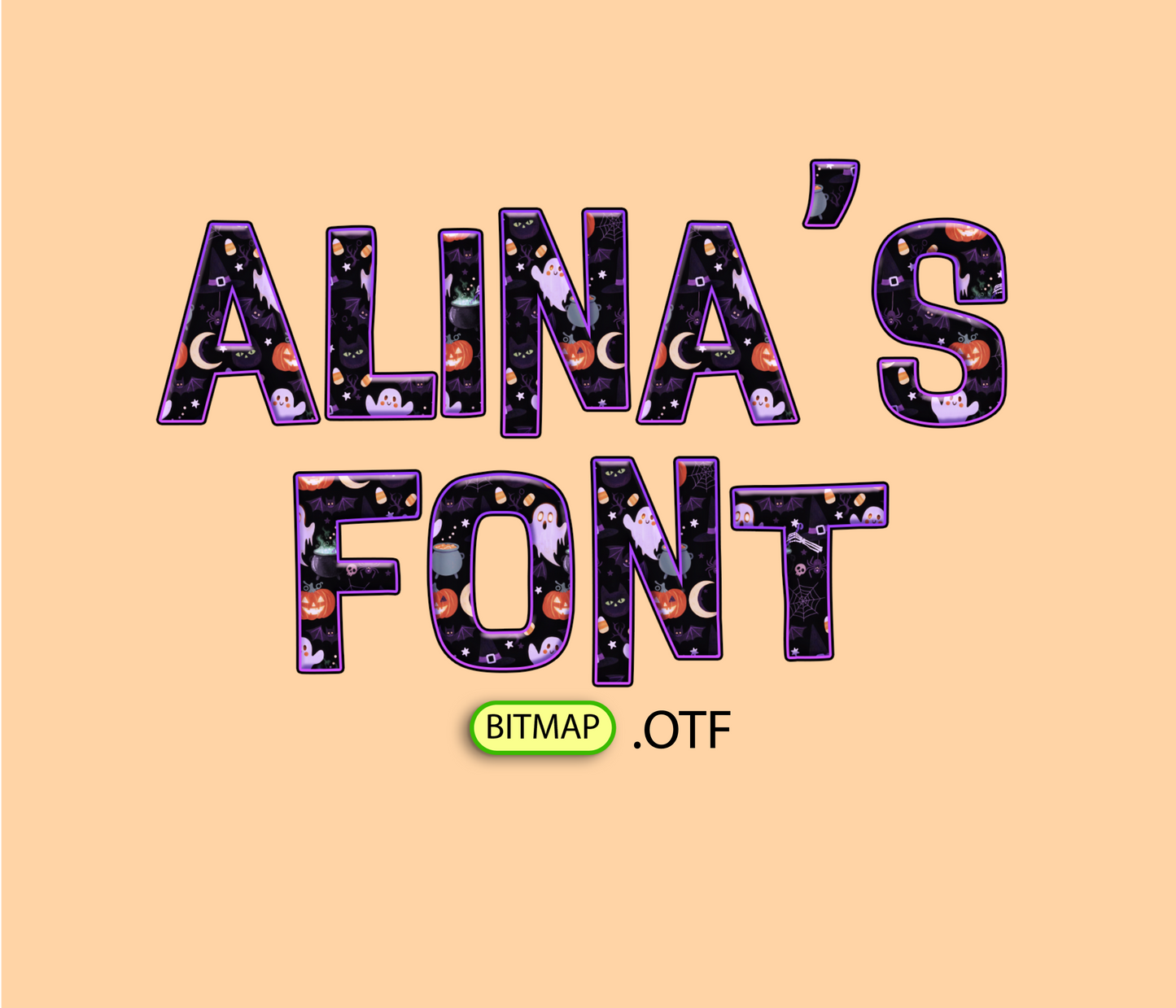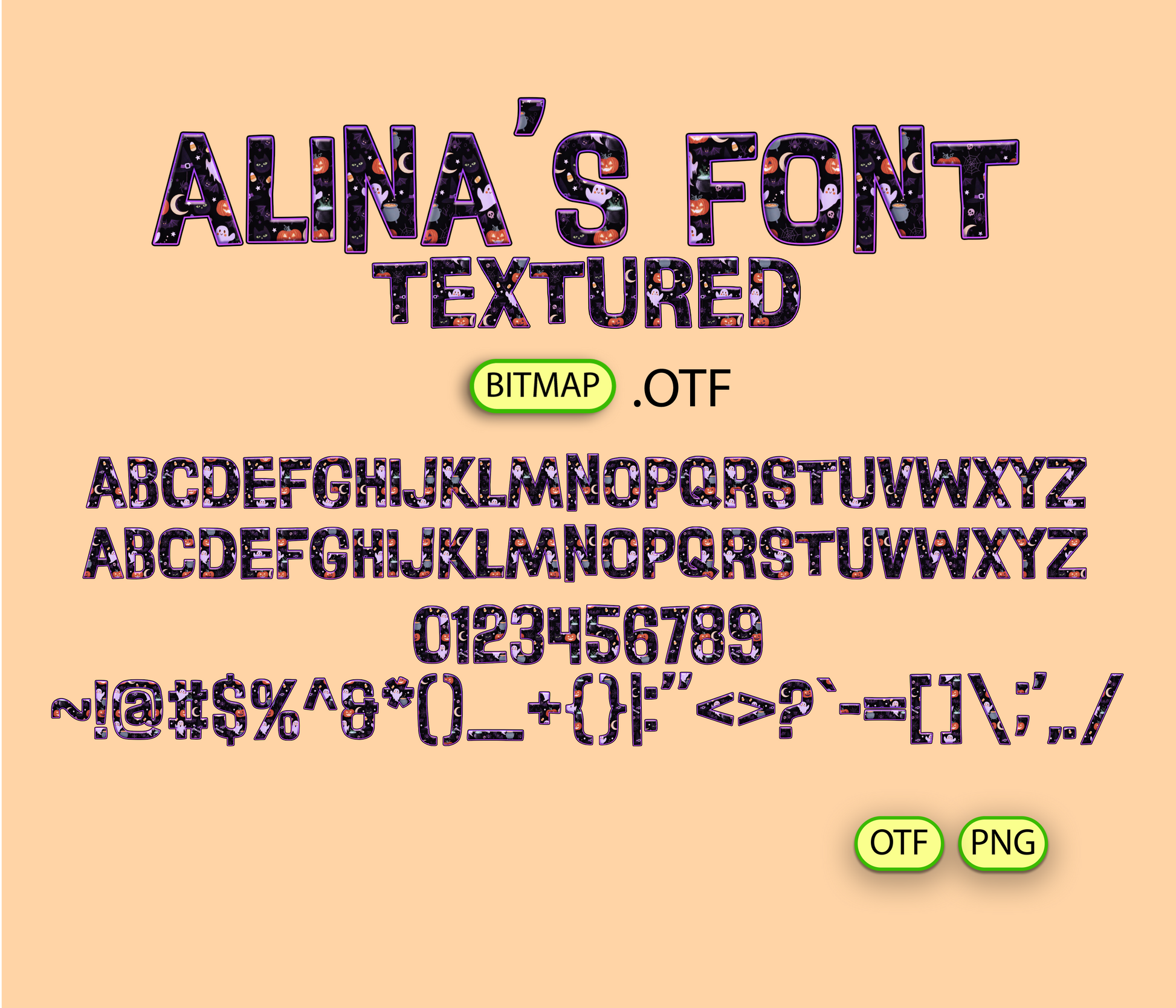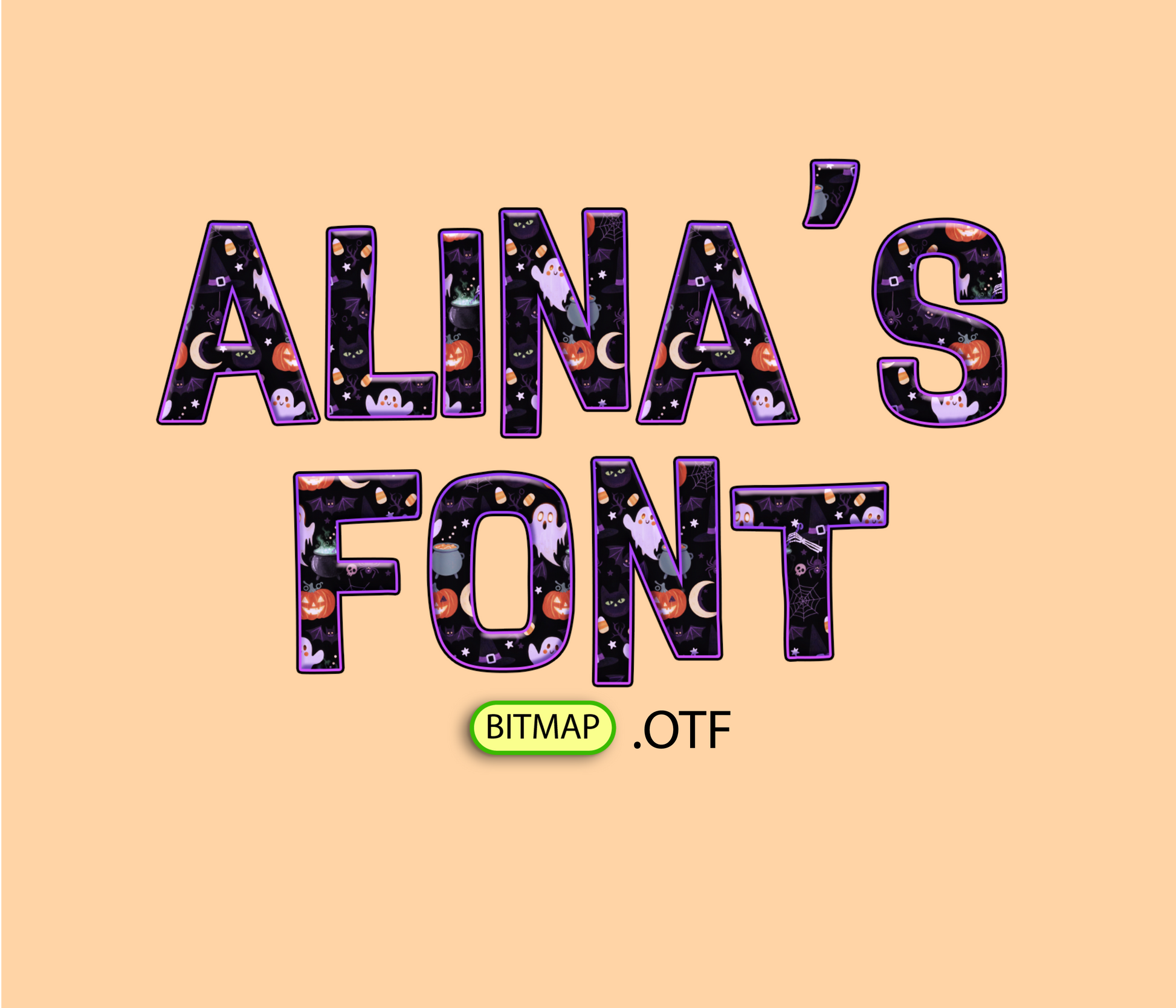
FREE Halloween Cute Ghosts Pattern Font
Step into the adorable world of friendly spirits with our Halloween Cute Ghosts font, capturing the essence of playful phantoms and whimsical hauntings. Perfect for Halloween enthusiasts, party planners, event organizers, and designers, this font brings the charming, spooky spirit of kawaii ghosts to your projects. Create delightful materials, merchandise, or digital content with the cheerful energy of cute specters.
Our Halloween Cute Ghosts font features playful, rounded lines and friendly characters reflecting the world of adorable spirits. Ideal for:
- Event Promotions: Create charming invites, posters, and banners for Halloween parties, trick-or-treat events, and themed gatherings that capture the spirit of friendly ghosts
- Merchandise Design: Perfect for t-shirts, posters, and accessories that showcase the whimsical aesthetic of cute phantoms and kawaii specters
- Digital Media: Enhance websites, blogs, and social media with playful headers and graphics that express the joy of adorable hauntings
- Halloween Content: Add authentic flair to party decorations, spooky projects, and creative designs inspired by friendly ghost tales
- Personal Projects: Bring cheerful spookiness to scrapbooking, DIY crafts, and home decor inspired by the world of cute spirits
Our font pays tribute to the iconic world of adorable spirits, empowering your designs with its playful and charming spirit. Whether crafting promotional materials, designing merchandise, or adding a whimsical touch to personal projects, this font communicates the delightful essence of friendly ghosts. Ready to inject kawaii spookiness into your creations? This font is your key to exciting, impactful design.